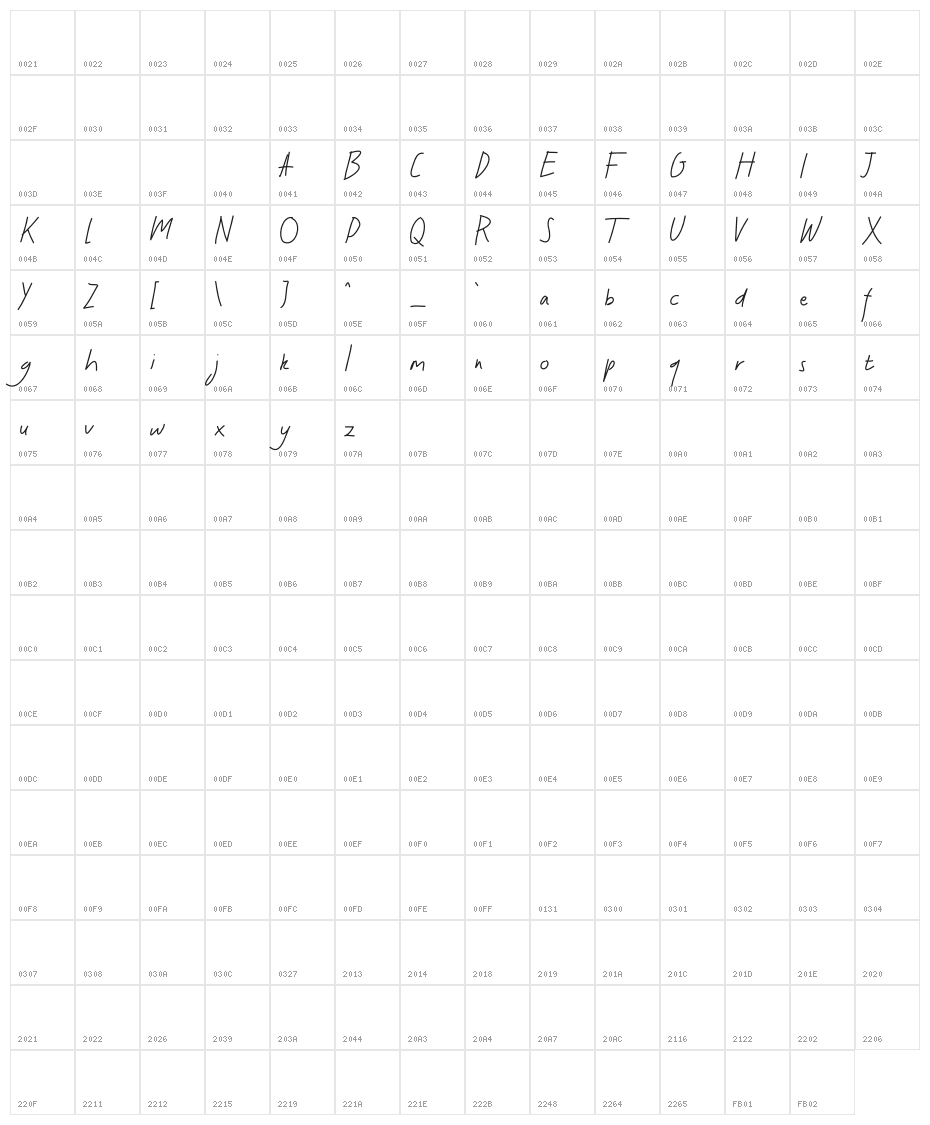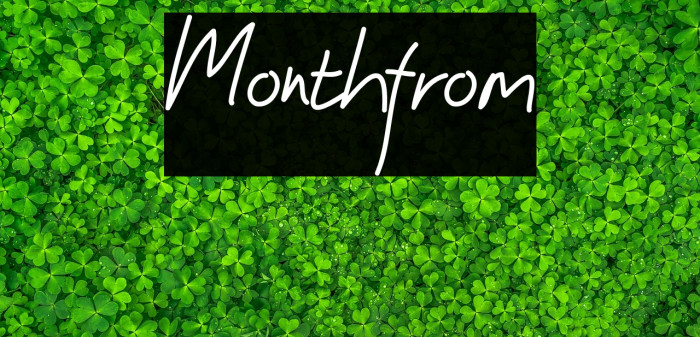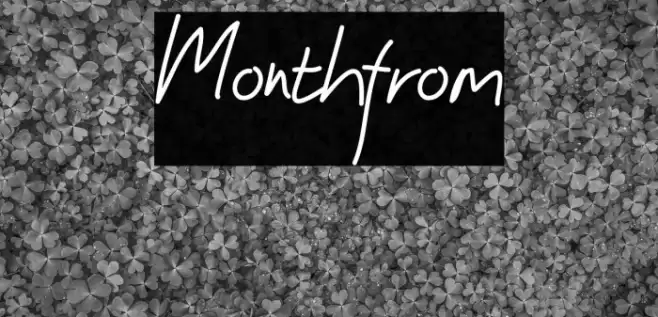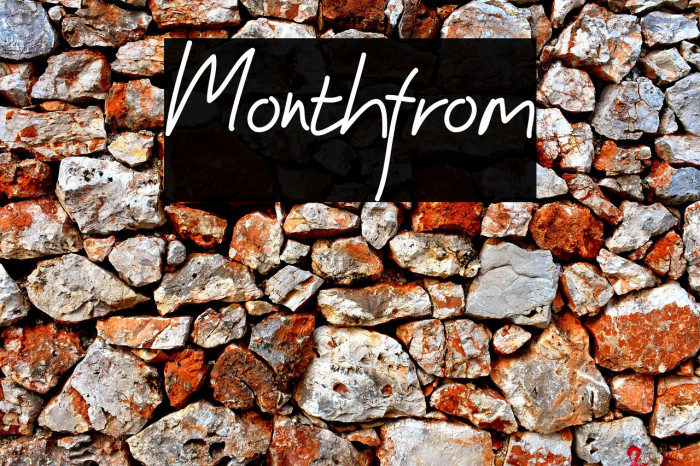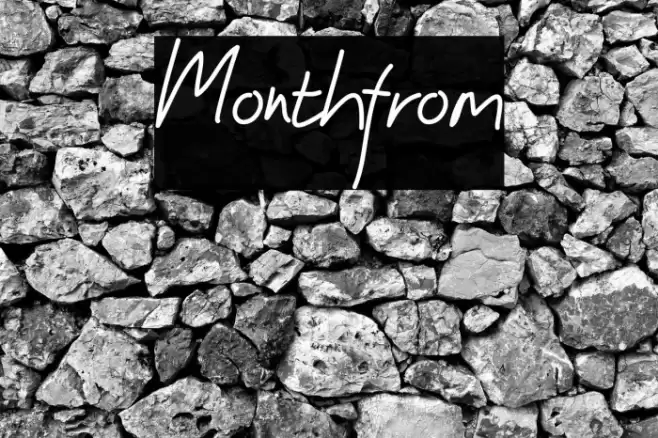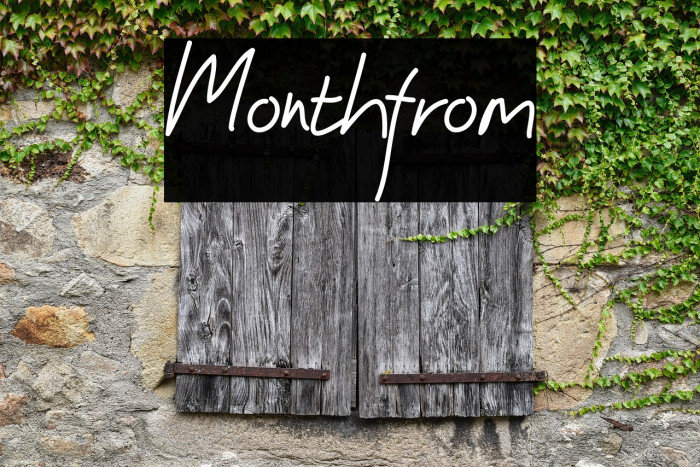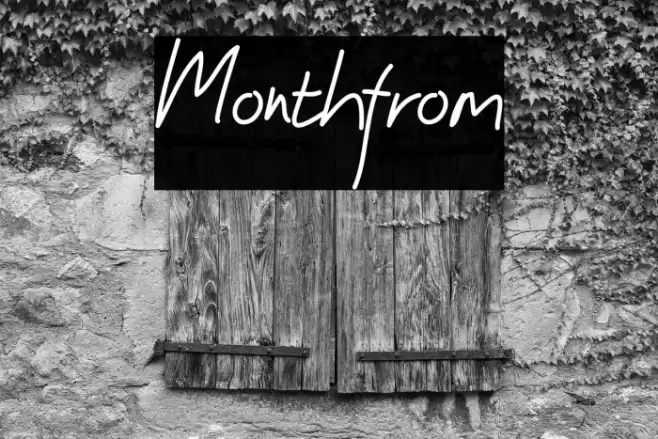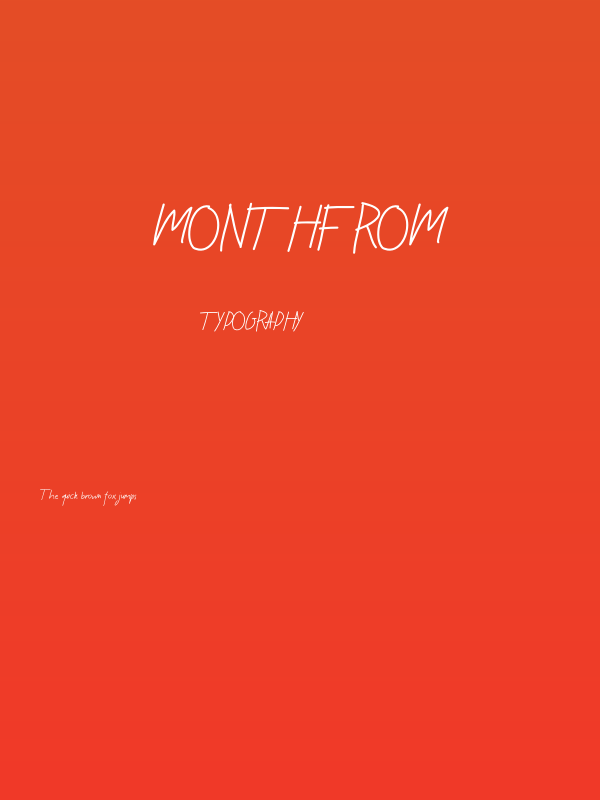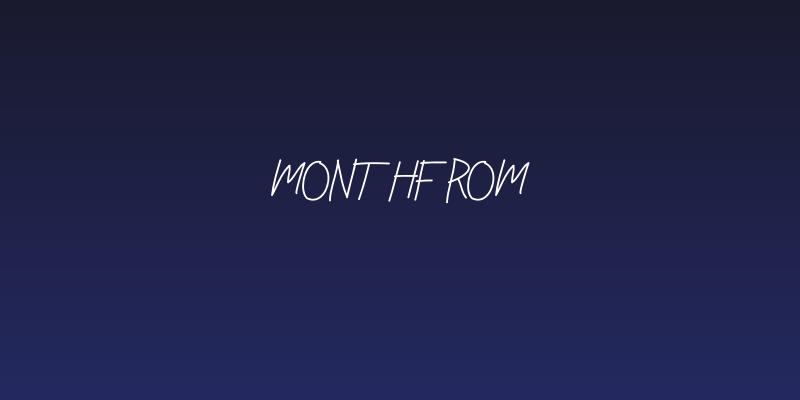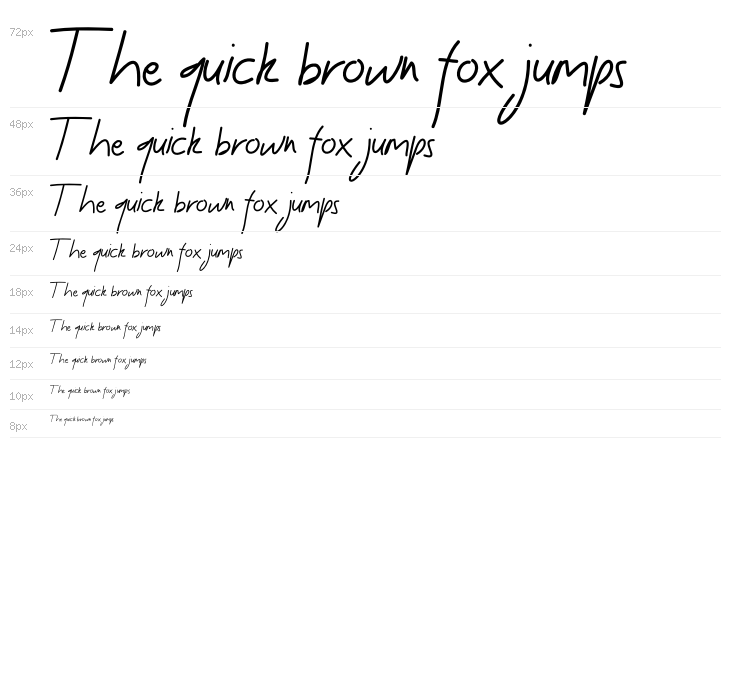
Monthfrom Font
Monthfrom Description
This font features a casual, handwritten style with a playful and dynamic appearance. The letters are slightly slanted, giving it a sense of movement and energy. The strokes are uneven, mimicking the natural flow of handwriting, which adds a personal and informal touch. The uppercase and lowercase letters maintain a consistent style, with some variation in stroke thickness that enhances its organic feel. The font's overall look is approachable and friendly, making it suitable for projects that require a personal or creative touch.
Overall StyleCasual
Use CaseHeadlines, Logos, Creative projects
Proposed ProjectsIdeal for greeting cards, personal branding, creative projects, and informal invitations.